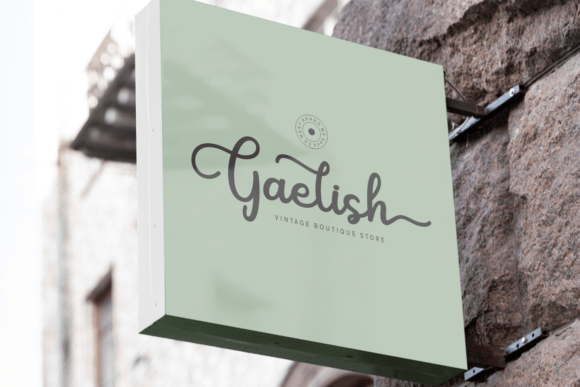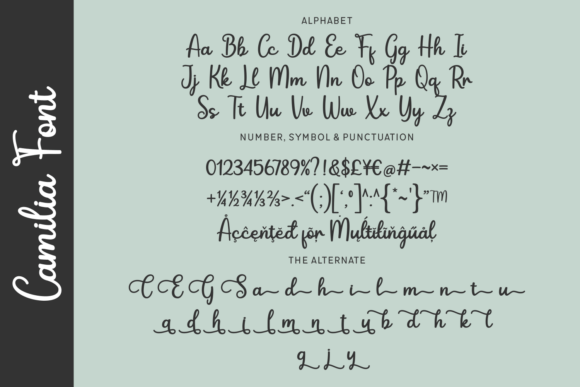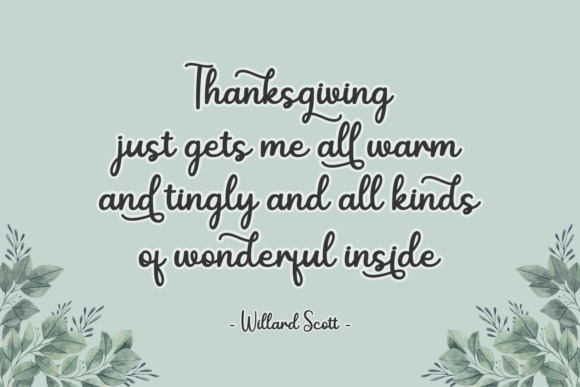
Camilia Font: Elevate Your Designs with Elegance and Sophistication
In the world of typography, few fonts manage to strike a balance between elegance and boldness. Camilia Font is one such exceptional script font that seamlessly combines graceful curves with a bold outline, creating a harmonious and versatile design. This stunning font is perfect for designers and crafters looking to add a touch of sophistication to their projects.
The Unique Charm of Camilia Font
Camilia Font boasts a unique and captivating style that sets it apart from other script fonts. Its distinctive swashes add a charming touch, making it an ideal choice for a variety of design applications. Whether you’re working on wedding invitations, branding, logos, or social media graphics, Camilia Font is sure to bring a level of elegance and refinement to your projects.
Key Features of Camilia Font
- Bold Outline: The bold outline of Camilia Font gives it a striking appearance that commands attention.
- Graceful Curves: The smooth, flowing curves of the font create a sense of harmony and balance.
- Unique Swashes: The swashes add a touch of whimsy and charm to the font, making it perfect for decorative designs.
- Versatile Design: Camilia Font can be used for a wide range of design applications, from wedding invitations to branding and logos.
Perfect for Wedding Invitations and Branding
Camilia Font is an excellent choice for wedding invitations, thanks to its elegant and sophisticated style. The font’s bold outline and graceful curves create a beautiful contrast that adds a touch of luxury to any wedding design. Additionally, Camilia Font is perfect for branding and logos, as its unique swashes and bold outline make it easy to recognize and remember.
Why Choose Camilia Font?
- Elegance: Camilia Font exudes warmth and creativity, making it perfect for designs that require a touch of sophistication.
- Versatility: The font can be used for a wide range of design applications, from wedding invitations to branding and logos.
- Unique Style: Camilia Font’s distinctive swashes and bold outline set it apart from other script fonts.
Camilia Font is a stunning script font that combines elegance and sophistication with a bold outline and unique swashes. Its versatile design makes it perfect for a wide range of design applications, from wedding invitations to branding and logos. Whether you’re a designer or crafter, Camilia Font is sure to bring a touch of luxury and refinement to your projects.